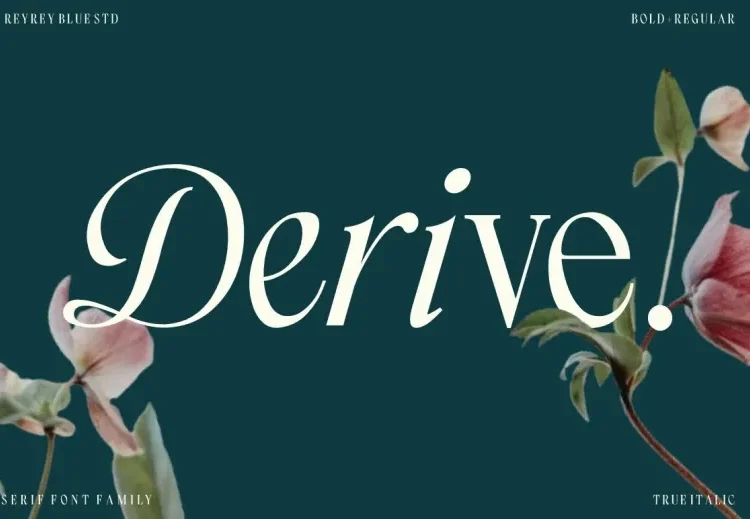
Derive Font
Derive Font is an elegant serif typeface designed to captivate with its unique blend of modern sophistication and classic refinement. Its distinctive serifs and beautifully crafted letters exude a sense of sophistication, making it an ideal choice for projects that demand the highest level of class and modern elegance.
Created with a focus on enhancing digital imagery, Derive Font is perfect for headlines, logos, and signage. Its versatility makes it suitable for a wide range of applications, including invitations, labels, magazine covers, logos, books, wedding and greeting cards, packaging, fashion, makeup, novels, stationery, advertisements, and any other form of digital or print media.
This typeface not only elevates your design projects but also ensures that your digital photos and visuals stand out with exceptional beauty and elegance, making them truly remarkable.